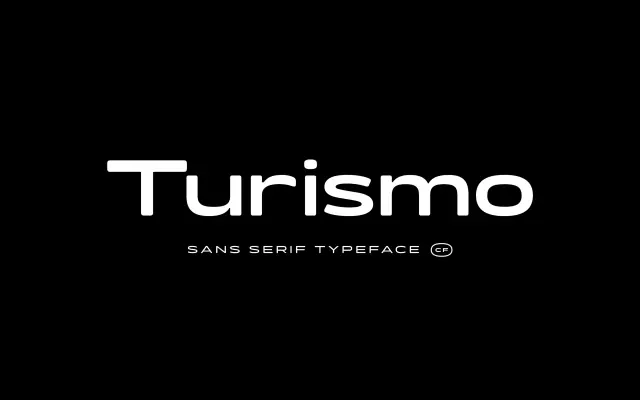
Turismo CF
A seven-weight display sans drawn from midcentury motorsports and technology aesthetics, combining rectangular structures with elongated sloping curves for logotypes and headlines.
Turismo CF draws on 1920s and 1960s references to build a geometric display sans suited to logotype and headline work. Rectangular forms sit alongside sloping, elongated curves that give the face a period character without direct revival. Seven weights from Light to Heavy cover Latin and Cyrillic script with broad language support across European languages.
Strong rectangular shapes combined with sloping elongated curves inspired by midcentury motorsports and technology place this firmly in the display category with a geometric constructivist character.